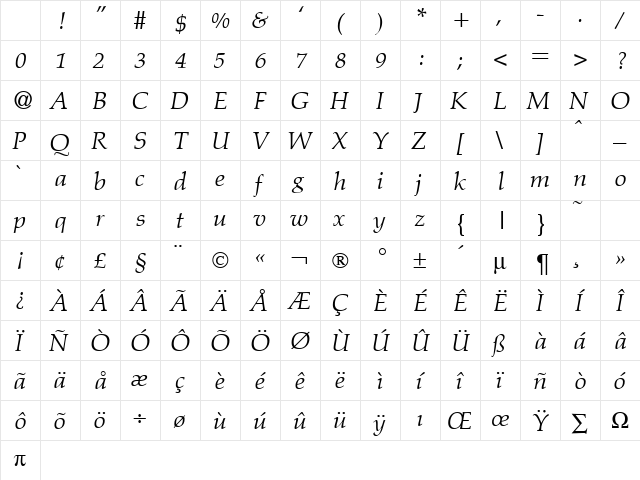
Complete PalmerWerk Italic glyph index. Displaying only characters natively supported by PalmerWerk Italic font.
PalmerWerk is a composed and adaptable typeface that performs quietly and consistently across a wide range of design contexts. The slanted form adds forward momentum and visual energy.